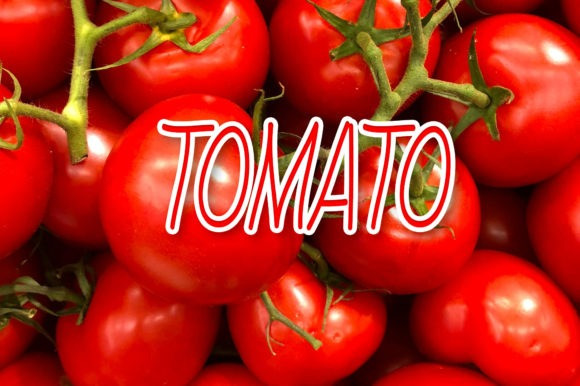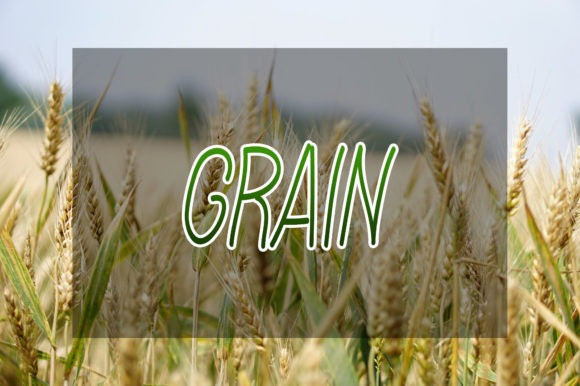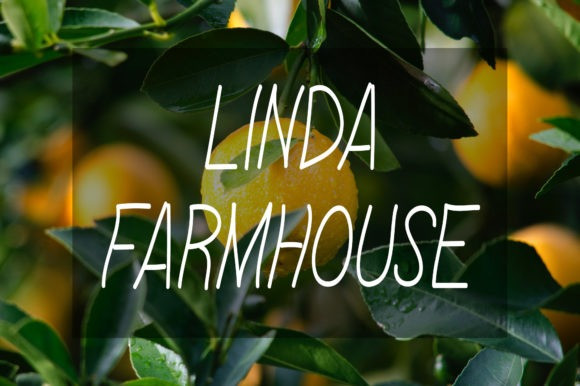
Linda Farmhouse Font
Linda Farmhouse is a simple and natural handwritten font. No matter the topic, this font will be an incredibly asset to your fonts’ library, as it has the potential to elevate any creation.